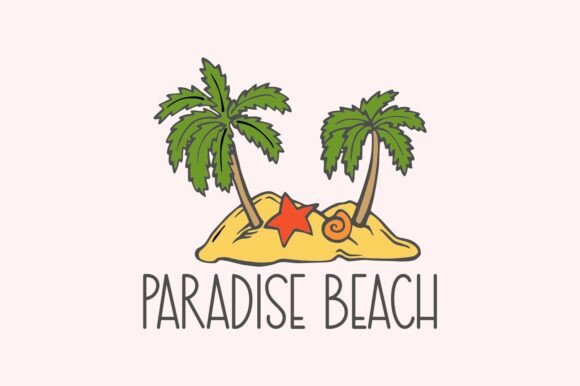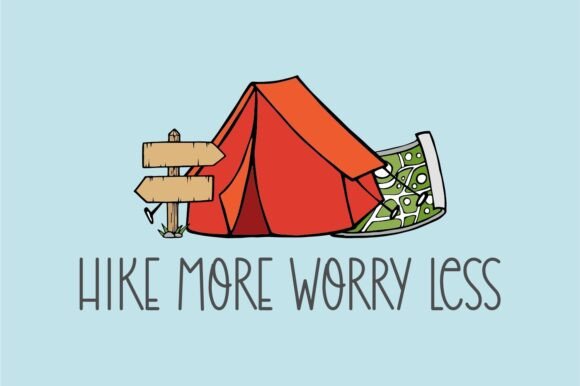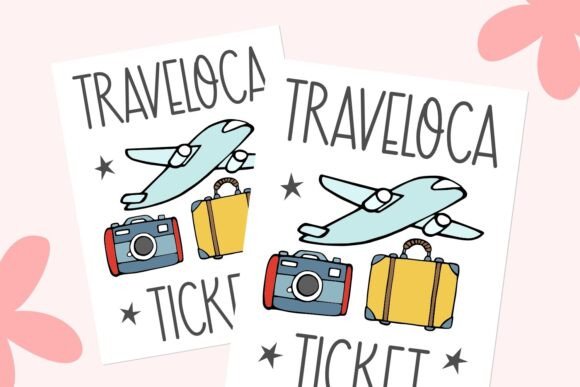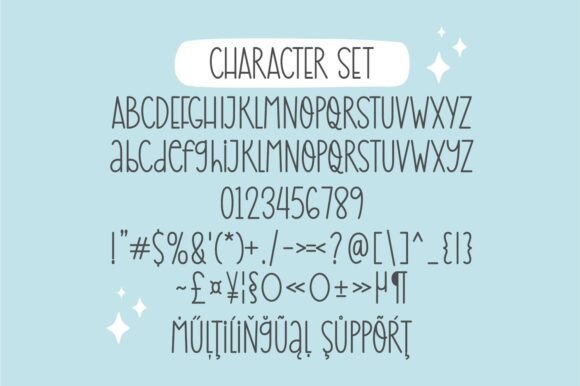
Introduction to Perfect Holidays Font
Bring a whimsical charm to your designs with this playful, hand-drawn font.
Its tall, narrow lettering and quirky curves create a friendly and relaxed vibe, perfect for travel-themed projects, holiday cards, planners, and DIY crafts With multilingual support and a full set of characters, this font seamlessly blends fun with functionality, making it ideal for any creative project needing a lighthearted touch.
Key Features of Perfect Holidays Font
Why Choose Perfect Holidays Font?
Perfect Holidays Font offers exceptional quality and versatility, making it a valuable addition to your design toolkit. Whether you’re creating for personal projects or commercial use, Perfect Holidays Font delivers professional results.